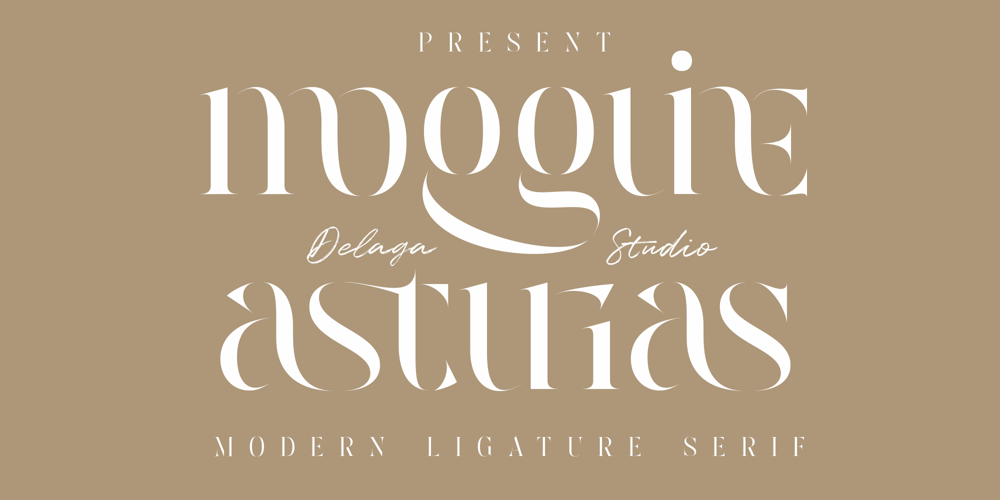
Mogguine Asturias
Mogguine Asturias font
Mogguine Asturias Font Family was designed by Faris Mu’afa and published by Delaga Studio. Mogguine Asturias contains 1 styles and family package options. Mogguine Asturias is a modern serif with a lot of styles. A high-contrast version of the famous Didot look that has been synonymous with fashion for decades. This font has over 100 glyphs with multilingual fonts included. This font is modern and nostalgic and is perfect for logos, mastheads, and quotes. It pairs beautifully with minimal sans serif or light script fonts.Features: All caps Stylistic Alternates & Ligatures Numerals & Punctuation Accented characters Multiple Languages Supported PUA Encoded HOW TO ACCESS ALTERNATE CHARACTERSOpen glyphs panel:In Adobe Photoshop go to Window – glyphsIn Adobe Illustrator go to Type – glyphsFollow my shop for upcoming updates including additional glyphs and language support. And please message me if you want your language included or If there are any features or glyph requests, feel free to send me a message, I would like to update it.